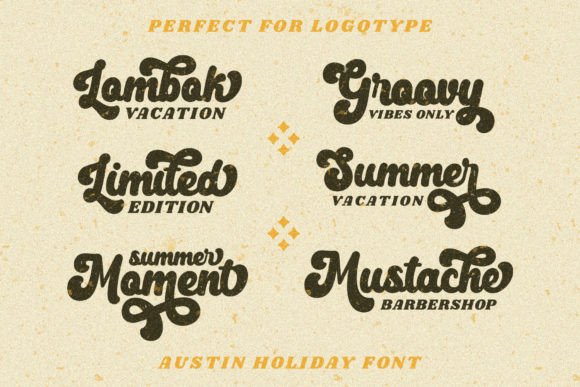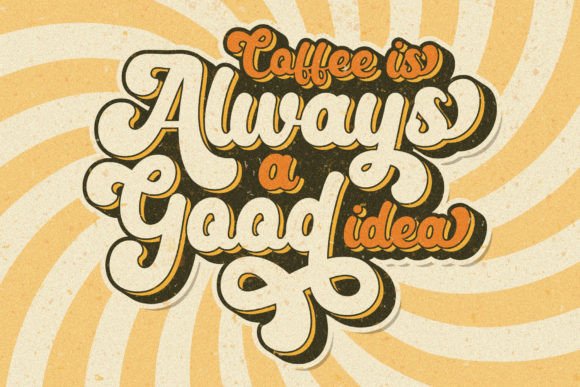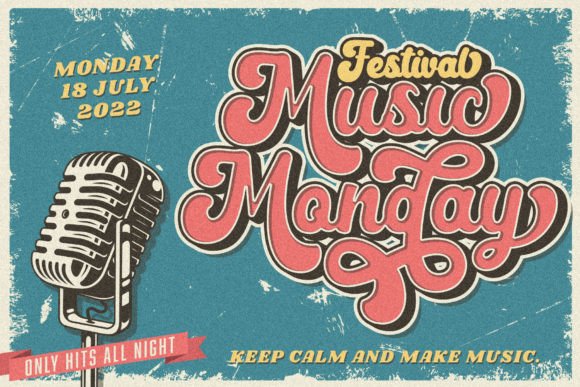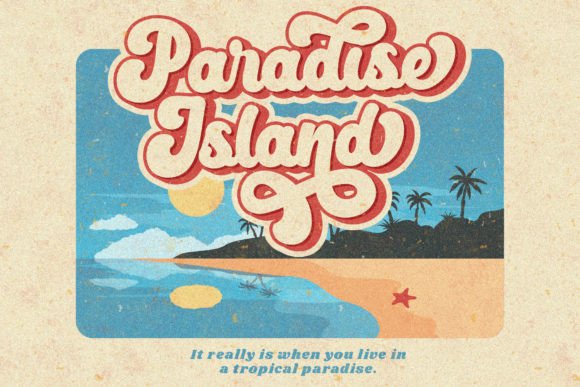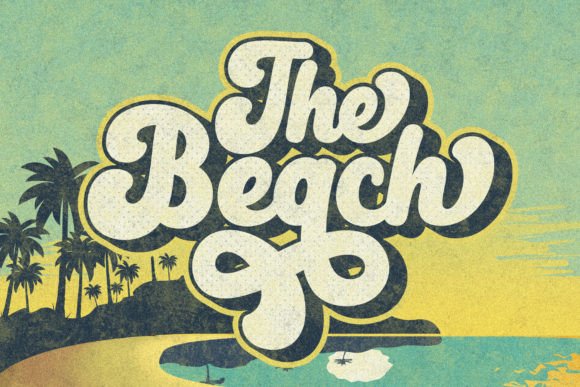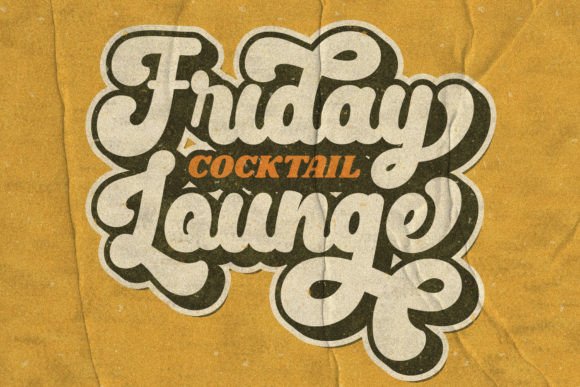
Austin Holiday Font: Elevate Your Designs with a Retro and Playful Script Font
Are you looking for a font that can add a touch of nostalgia and playfulness to your designs? Look no further than the Austin Holiday Font. This beautifully crafted script font is perfect for designers and crafters who want to create stunning visuals that exude a retro vibe. In this article, we’ll dive into the features and benefits of the Austin Holiday Font and explore how you can use it to take your designs to the next level.
What is Austin Holiday Font?
Austin Holiday Font is a retro and playful script font designed to add tons of stylish character to your designs. With its elegant and flowing lines, this font is perfect for creating eye-catching visuals that capture the essence of a bygone era. Whether you’re working on a logo, branding project, invitation, or social media post, the Austin Holiday Font is sure to make your design stand out.
Key Features of Austin Holiday Font
So, what makes the Austin Holiday Font so special? Here are some of its key features:
• PUA Encoded: The Austin Holiday Font is PUA (Private Use Area) encoded, which means you can access all of the glyphs and swashes with ease. This makes it easy to use the font in your designs and ensures that you can get the most out of its features.
• Retro and Playful: The font has a distinctly retro and playful feel, making it perfect for designs that require a touch of nostalgia and whimsy.
• Script Display Font: The Austin Holiday Font is a script display font, which means it’s designed to make a statement. Use it to add a special retro touch to any design idea.
Use Cases for Austin Holiday Font
The Austin Holiday Font is a versatile font that can be used in a wide range of design projects. Here are some use cases to get you started:
• Logos and Branding: Use the Austin Holiday Font to create a unique and memorable logo for your brand. Its retro and playful feel makes it perfect for businesses that want to stand out from the crowd.
• Invitations and Stationery: Add a touch of elegance and sophistication to your invitations and stationery with the Austin Holiday Font.
• Wedding Designs: The Austin Holiday Font is perfect for wedding designs, including wedding invitations, programs, and decorations.
• Social Media Posts: Use the Austin Holiday Font to create eye-catching social media posts that grab attention and drive engagement.
Tips for Using Austin Holiday Font
Here are some tips for getting the most out of the Austin Holiday Font:
• Experiment with Different Sizes: The Austin Holiday Font looks great in a variety of sizes, so don’t be afraid to experiment and find the perfect size for your design.
• Pair it with Other Fonts: The Austin Holiday Font pairs well with other fonts, so try combining it with a sans-serif font for a bold and eye-catching look.
• Use it to Create Contrast: Use the Austin Holiday Font to create contrast in your design. For example, you can use it to highlight a key message or create a focal point.
In conclusion, the Austin Holiday Font is a beautiful and versatile script font that’s perfect for designers and crafters who want to add a touch of retro playfulness to their designs. With its PUA encoding, retro and playful feel, and script display style, this font is sure to elevate your designs and make them stand out. Whether you’re working on a logo, branding project, invitation, or social media post, the Austin Holiday Font is a great choice. So why wait? Download the Austin Holiday Font today and start creating stunning visuals that capture the essence of a bygone era.